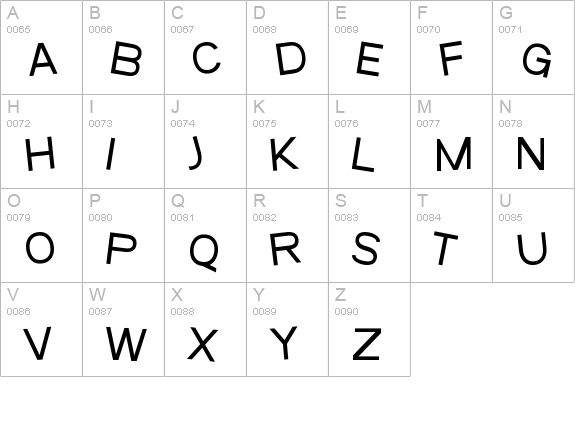
SF Beaverton Medium Font Details
SF Beaverton Medium is a balanced, medium-weight variant in the SF typeface family \xE2\x80\x94 well suited to sub-headlines, navigation, and balanced editorial work.
SF Beaverton Medium is a captivating and versatile font that effortlessly combines modernity with a timeless appeal. Its clean lines and balanced proportions make it a perfect choice for a wide range of design projects, from brand identities and signage to editorial layouts and web designs. This medium weight variant of SF Beaverton strikes a harmonious balance between elegance and legibility. It exudes a sense of confidence and professionalism, making it an ideal choice for corporate communications, presentations, and business materials. The clarity and readability of SF Beaverton Medium make it an excellent option for both print and digital applications. Whether used for headlines, subheadings, or body text, this font delivers a polished and refined look that commands attention while maintaining maximum readability. One of the best things about SF Beaverton Medium is that it is freely available to download at FontsMarket.com. This means that designers, creatives, and typography enthusiasts can access this exceptional font without any cost. With its accessibility, SF Beaverton Medium empowers designers to bring their visions to life without breaking the bank. In conclusion, SF Beaverton Medium is a captivating and versatile font that adds a touch of sophistication to any design project. Its clean lines, balanced proportions, and medium weight make it an ideal choice for a variety of applications. And with its availability as a free download at FontsMarket.com, SF Beaverton Medium becomes a valuable asset for designers seeking to create impactful and professional designs without compromising their budget.